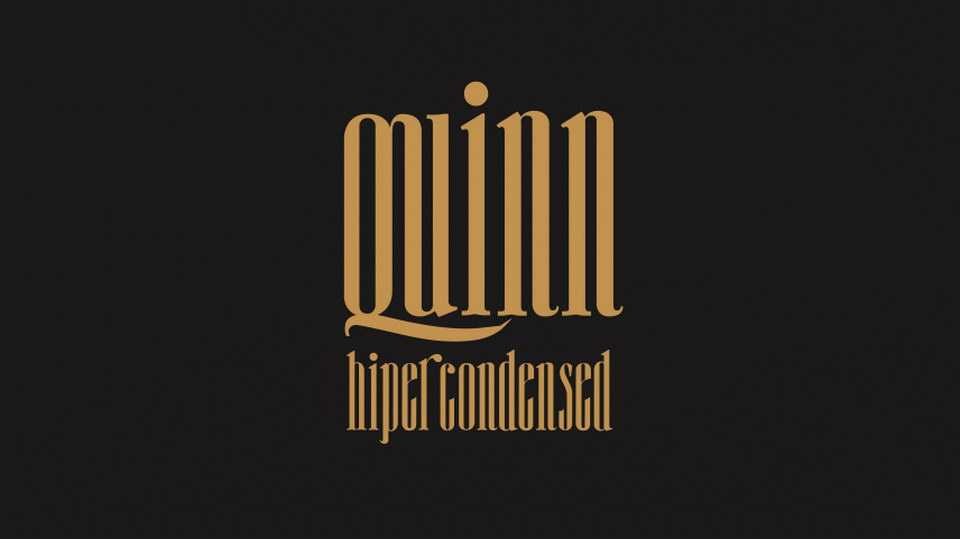
Download Quinn font, a gorgeous hiper condensed serif with elegant characters. It’s good for tight spaced text and requires that you give a space to come out to be seen. It is suitable for branding, fashion, apparel and other beautiful projects.
Designer: Mariel Gornati